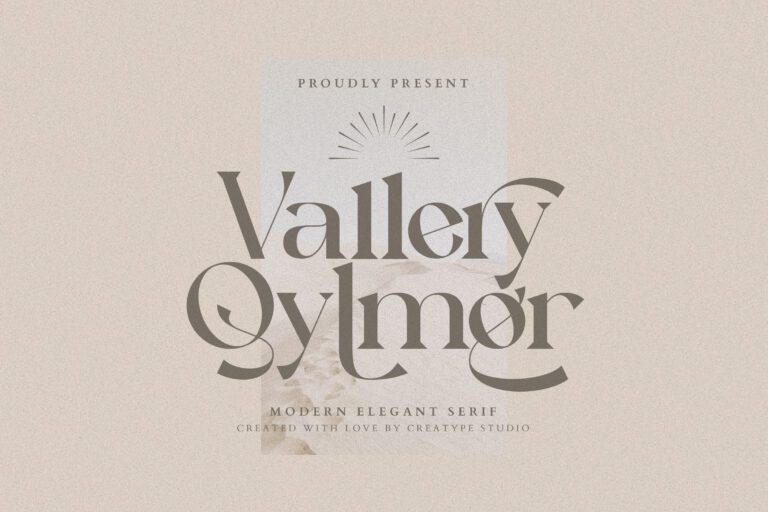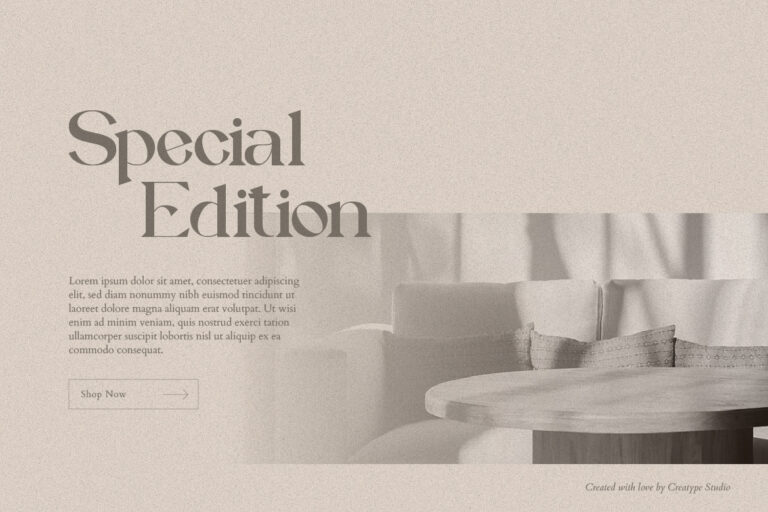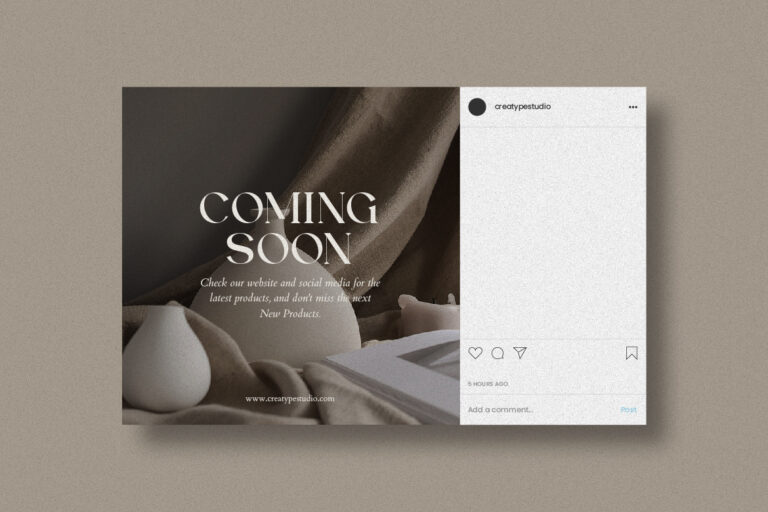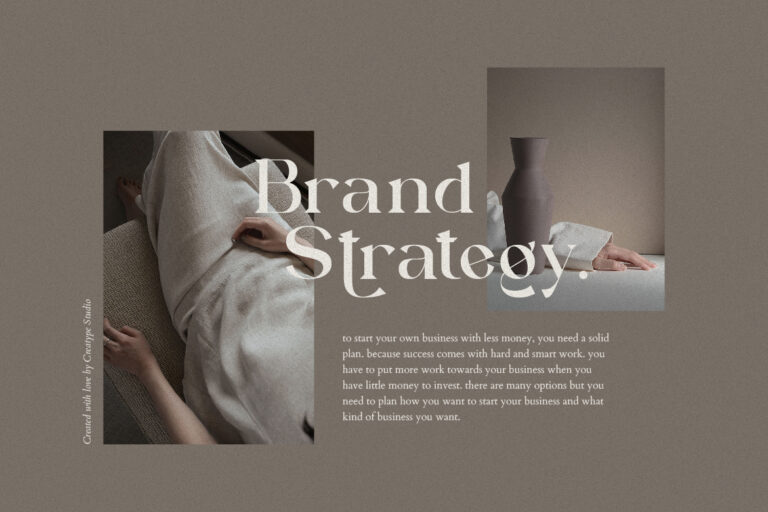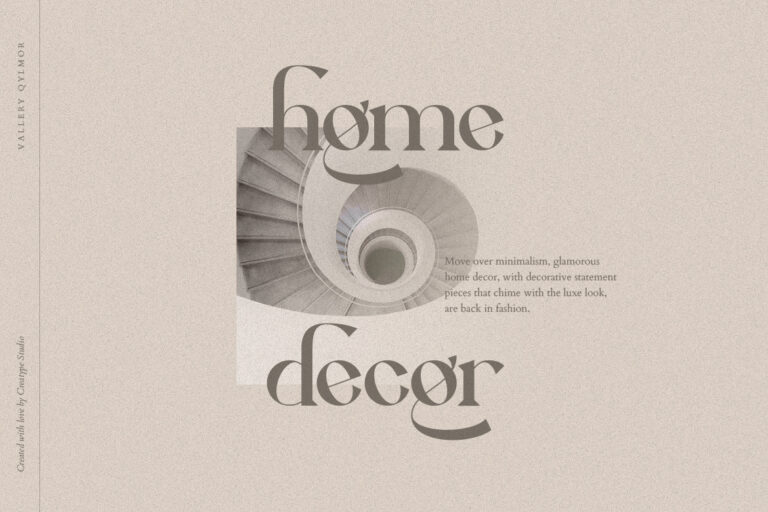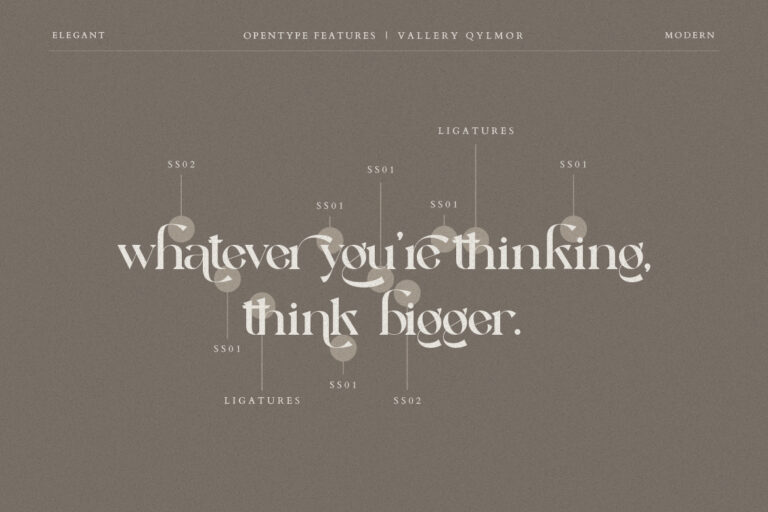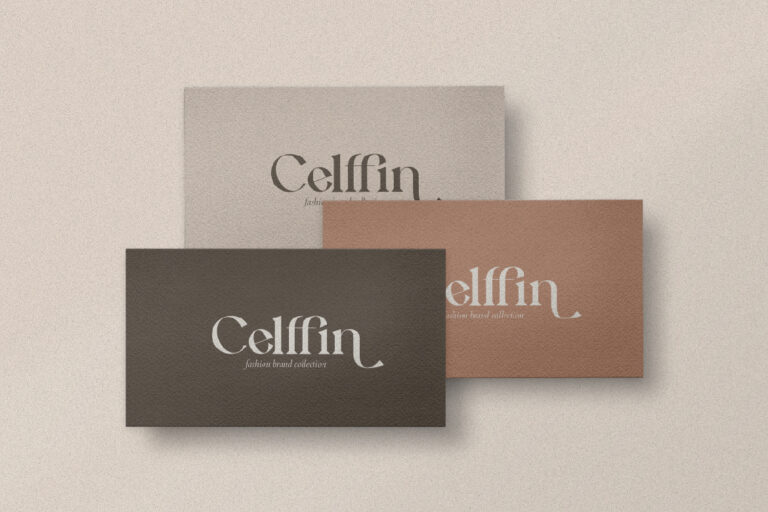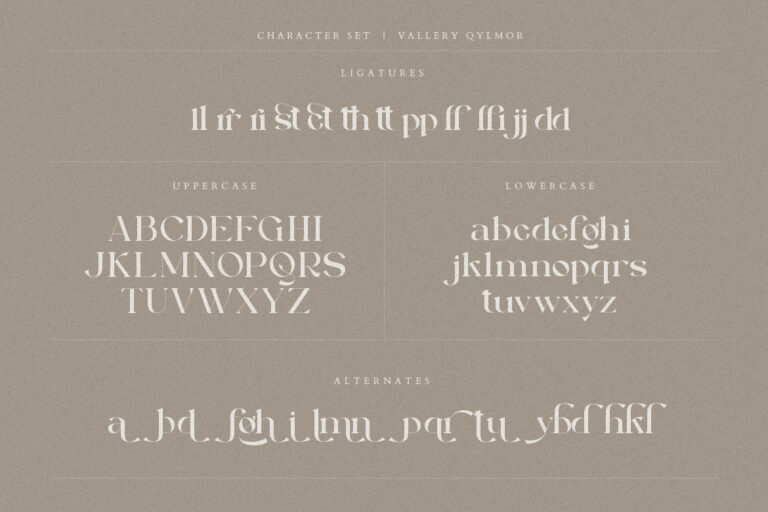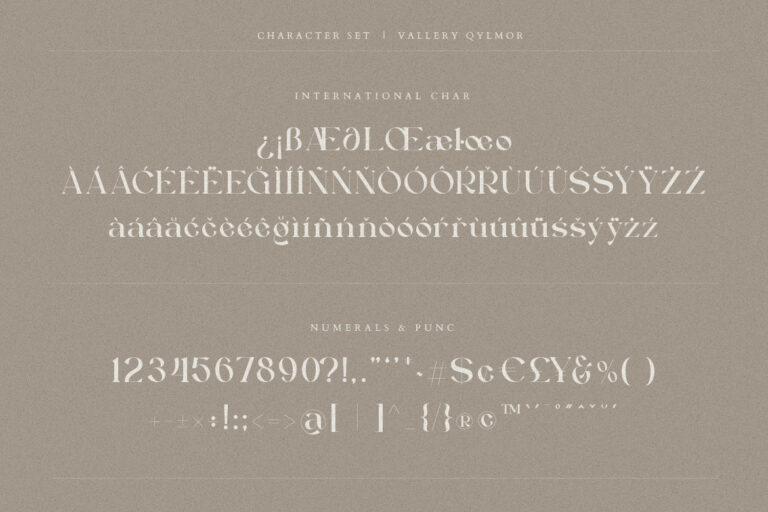
Vallery Qylmor Modern Elegant Serif
Vallery Qylmor is a modern elegant serif typeface. This font looks very simple, clean, and elegant. Specially designed by skilled hands makes this font is the perfect fit for all your big projects.
Vallery Qylmor is perfect for branding projects, logo, wedding designs, social media posts, advertisements, product packaging, product designs, label, photography, watermark, invitation, stationery and any projects that need handwriting taste.